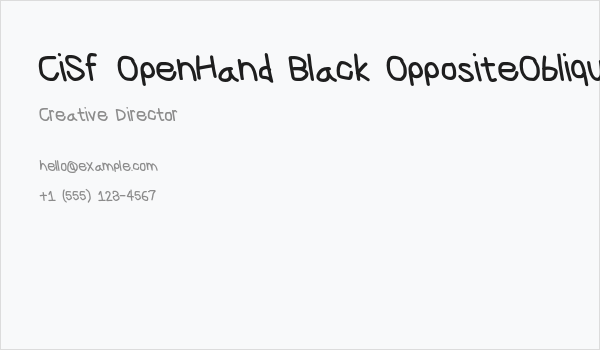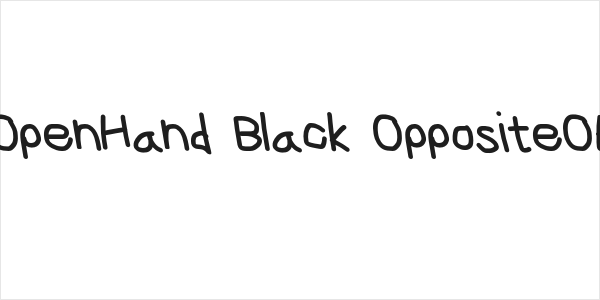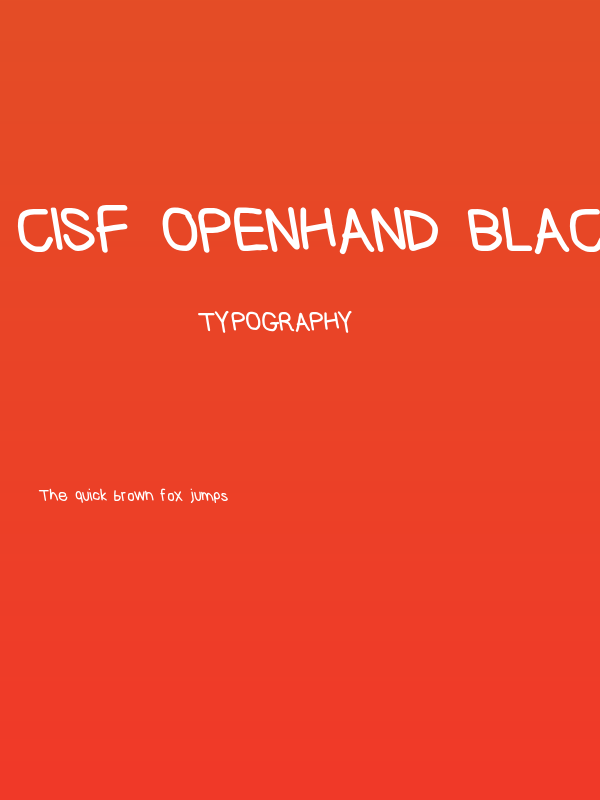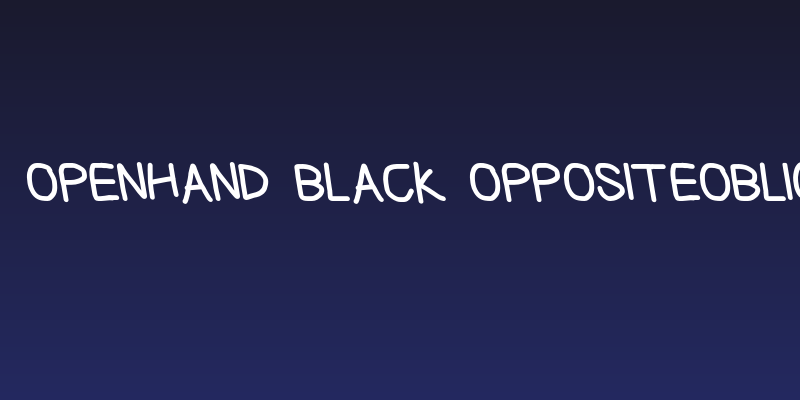
CiSf OpenHand Black OppositeOblique Font
CiSf OpenHand Black OppositeOblique Description
This font features a playful and casual handwritten style, characterized by its rounded and slightly irregular letterforms. The strokes are consistent in thickness, giving it a uniform appearance despite its informal nature. The uppercase and lowercase letters maintain a cohesive look, with the lowercase letters slightly smaller and more compact. Numbers and special characters are designed to match the overall style, ensuring readability and a friendly aesthetic. The font's informal and approachable design makes it suitable for projects that aim to convey warmth and personality.
| Use Case | Headlines, Informal text, Branding |
| Proposed Projects | Ideal for children's books, greeting cards, informal invitations, and playful branding projects. |